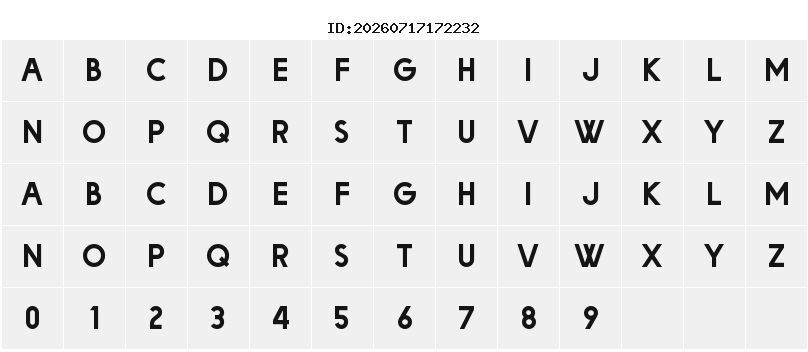
• Font Name: Big Orange Cyrillic
• Full Font Name: Big Orange Cyrillic
About Big Orange Cyrillic.ttf
Big Orange Cyrillic.ttf is a modern, elegant sans-serif font designed for ultimate readability and visual harmony. Perfect for branding, headlines, web design, and print materials.